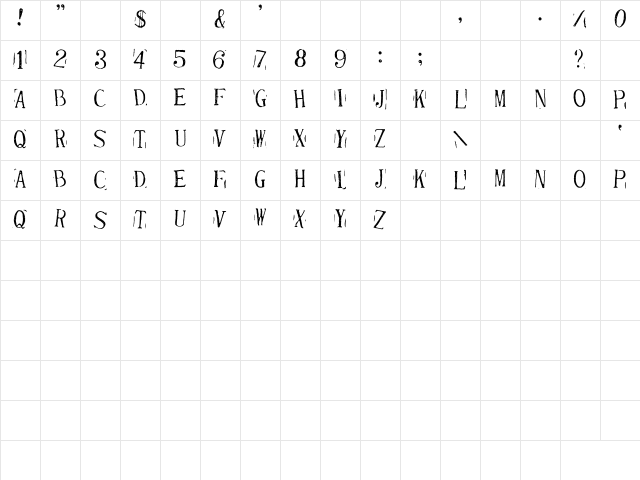
Randy Described Eternity Regular Free Font
Randy Described Eternity Regular
Foundry: Lauren Brown
Designer: Lauren Brown
Design Context for Randy Described Eternity
Randy Described Eternity is a composed and adaptable typeface that performs quietly and consistently across a wide range of design contexts.
Who designed the Randy Described Eternity Regular font?